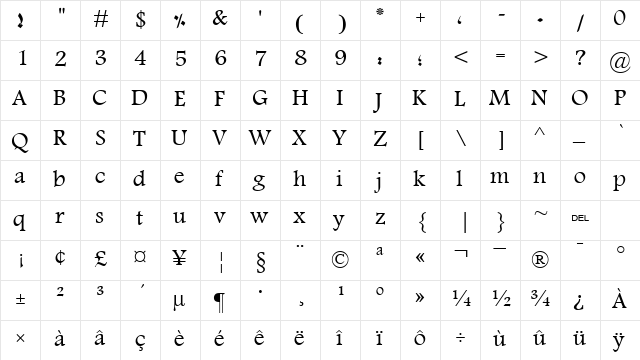
mohammad bold art 1 Regular Font Preview
mohammad bold art 1 Regular
mohammad bold art 1 Regular Font Details
Design Context for mohammad bold art 1 Typeface
mohammad bold art 1 is a composed and adaptable typeface that performs quietly and consistently across a wide range of design contexts. Its bold stroke weight gives it real presence on the page.
Pro Tip: Use mohammad bold art 1 in both headline and body roles to test its range before committing to a single application.